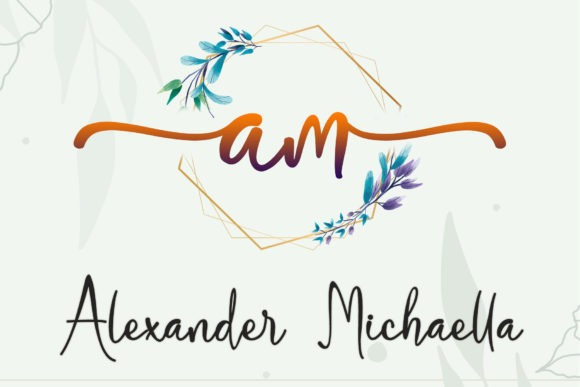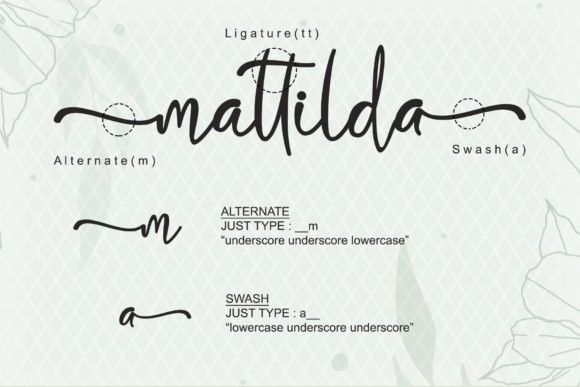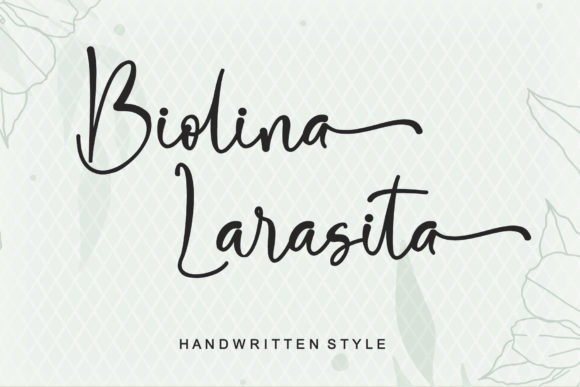
Bonyca Script Font
“Bonyca” is a font display that is made by hand, inspired by classic posters.
comes with uppercase, lowercase, numerals, punctuations and so many variations on each character include OpenType alternates, common ligatures and also additional swash to let you customize your designs. Perfect to use for Logotype, Letterhead, Poster, Apparel Design, Label and etc.